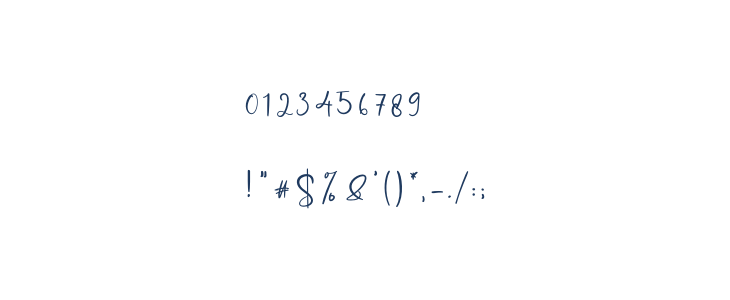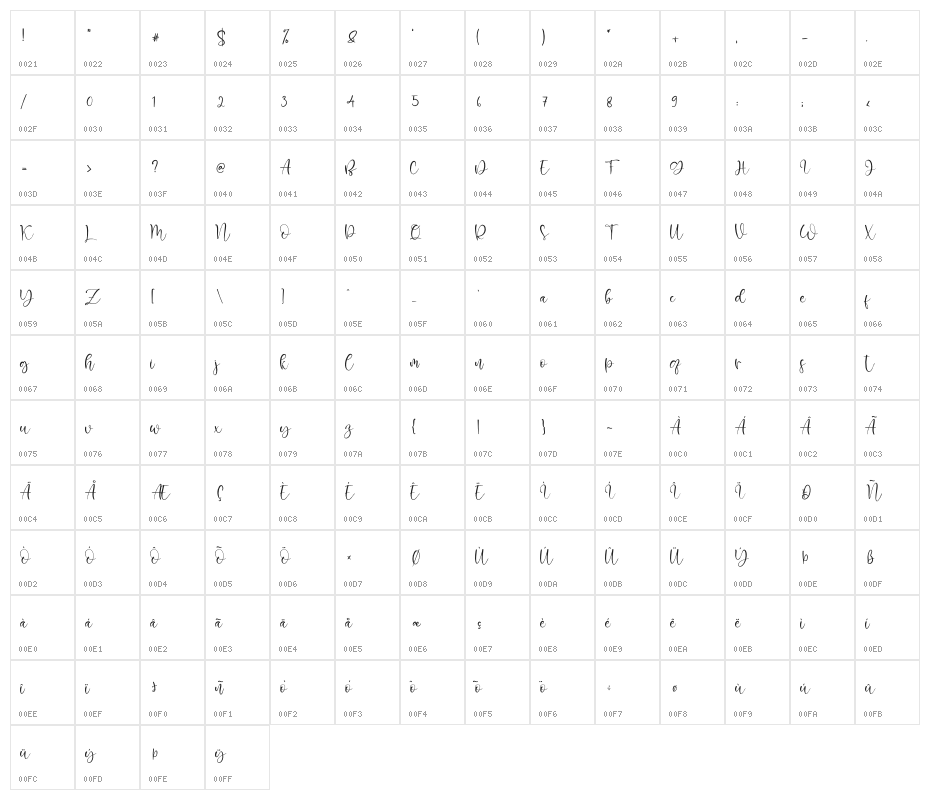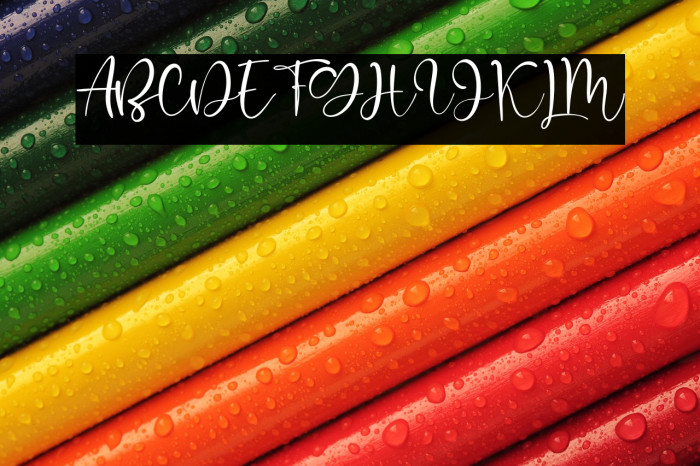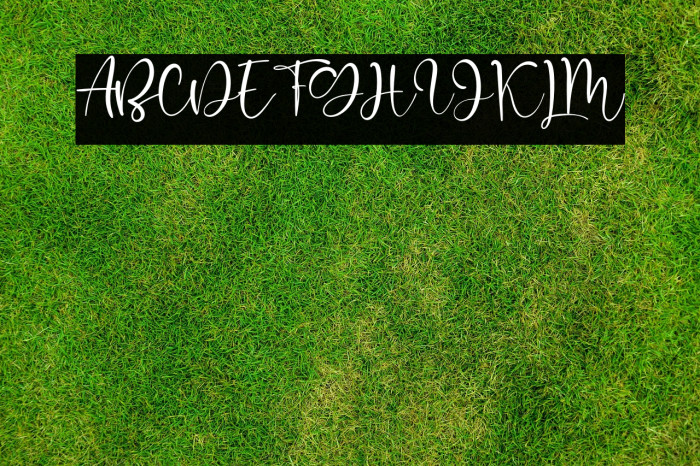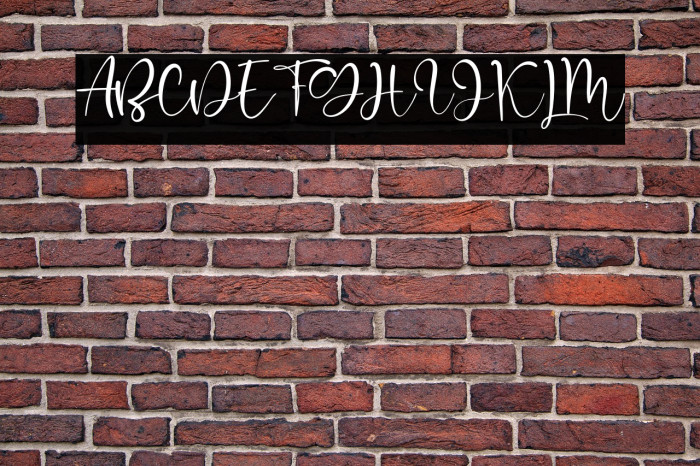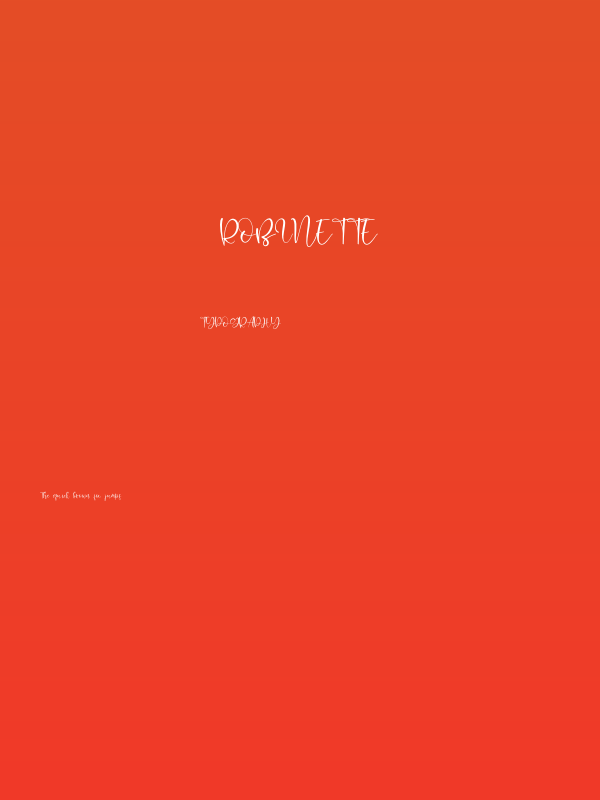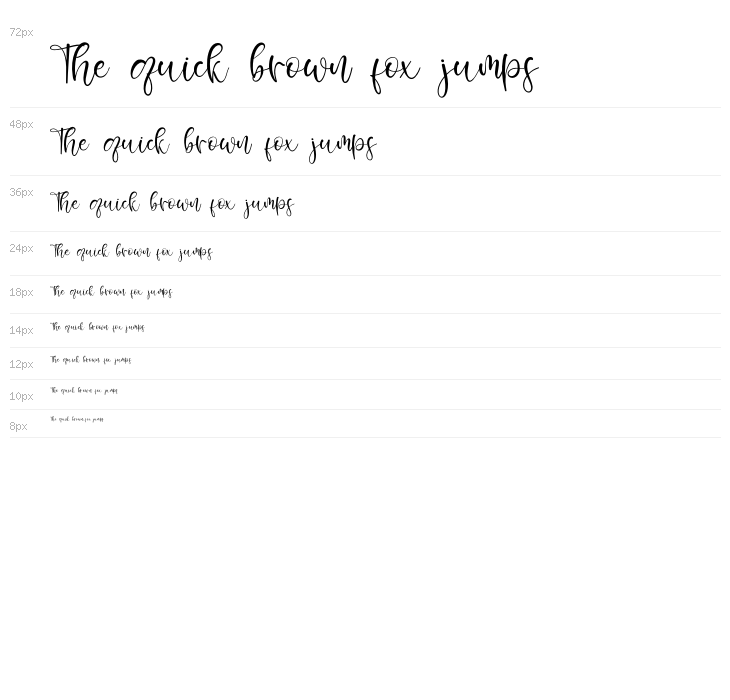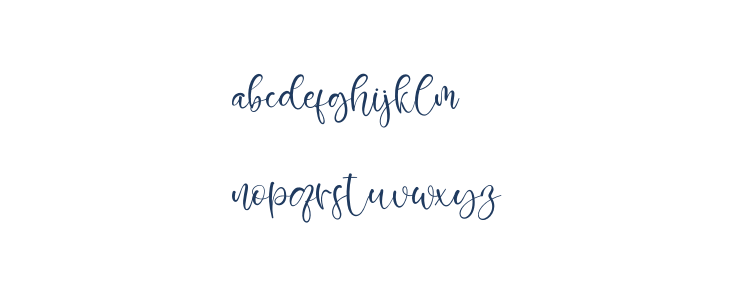
Robinette Font
This font features an elegant and flowing script style, characterized by its smooth, cursive strokes and a touch of whimsy. The uppercase letters are bold and sweeping, with intricate loops and flourishes that give them a decorative flair. The lowercase letters maintain a consistent flow, with gentle curves and a slightly informal feel. The numerals are clear and legible, complementing the overall script style. Special characters are thoughtfully designed to match the font's aesthetic, making it versatile for various uses. This font exudes a sense of sophistication and charm, perfect for adding a personal touch to any project.
| Use Case | Logos, Invitations, Decorative text |
| Proposed Projects | Ideal for wedding invitations, greeting cards, branding, and social media graphics. |